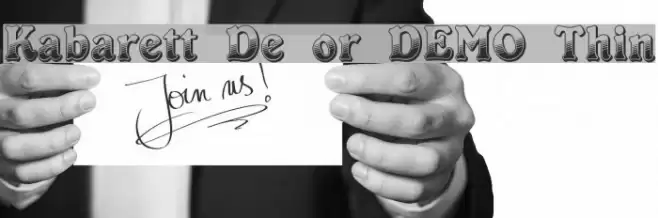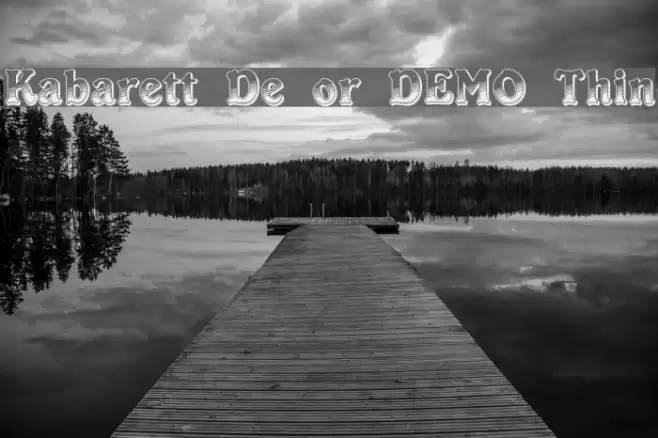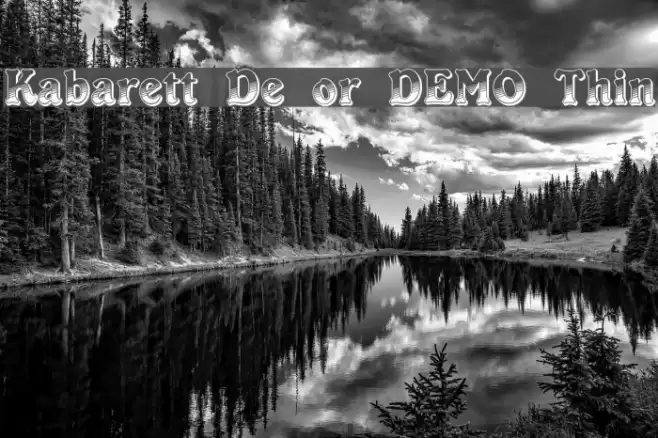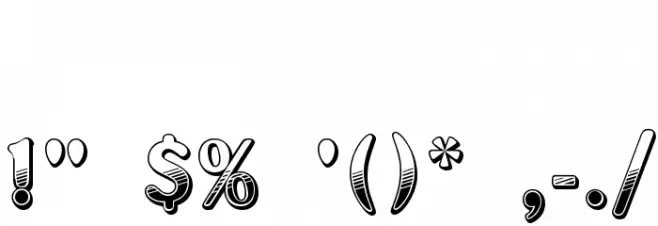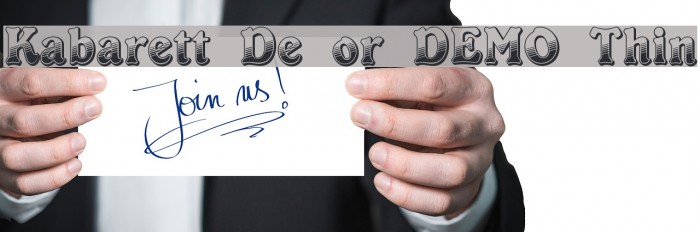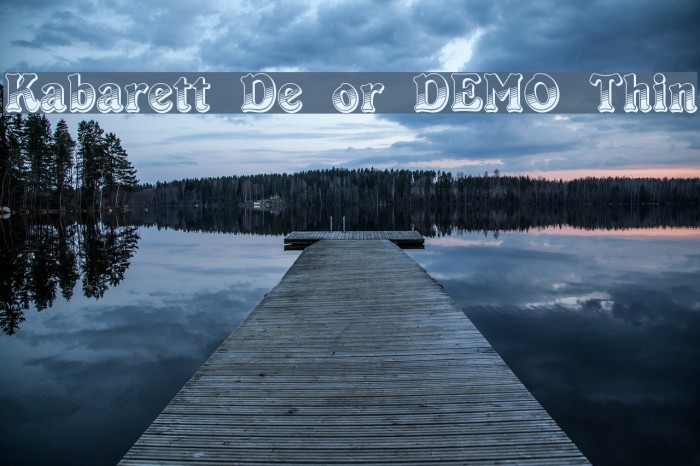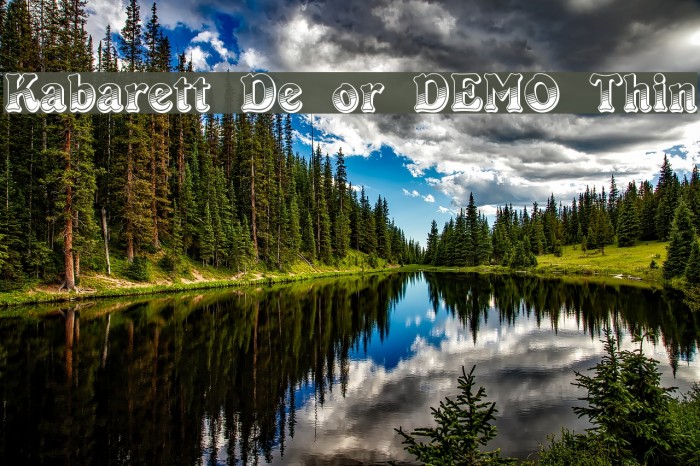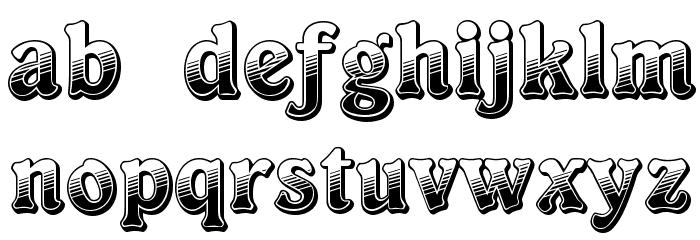
Kabarett Decor DEMO Thin Font
Kabarett Decor DEMO Thin Description
This font features a bold, decorative style with a vintage flair. Each character is outlined with a shadow effect, giving it a three-dimensional appearance. The letters are ornate, with intricate detailing that adds a sense of elegance and sophistication. The uppercase and lowercase letters maintain a consistent design, with the uppercase being slightly more pronounced. The numerals and special characters are equally stylized, ensuring a cohesive look across all text. This font is ideal for projects that require a touch of classic charm and visual impact.
A bold, decorative font with a vintage, three-dimensional style from Uncategorized fonts.
- Proposed Projects: Ideal for posters, event invitations, branding, and any design needing a vintage or theatrical touch.
- Overall Style: Vintage, Decorative